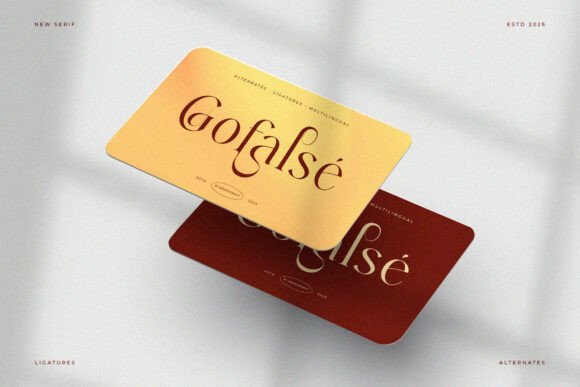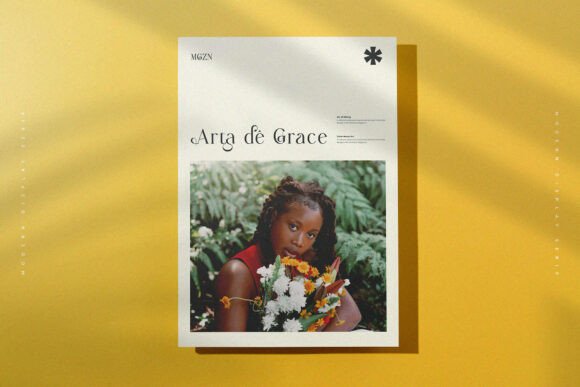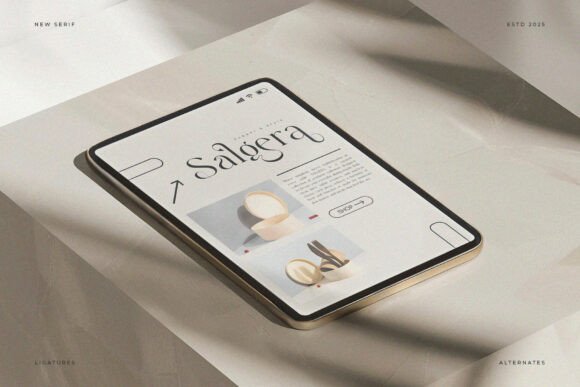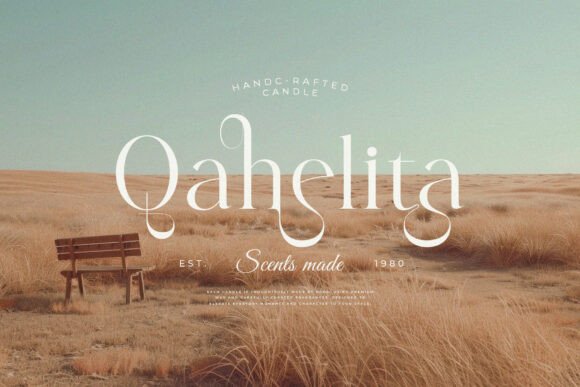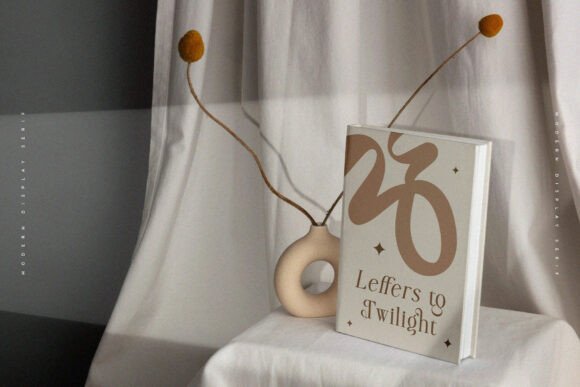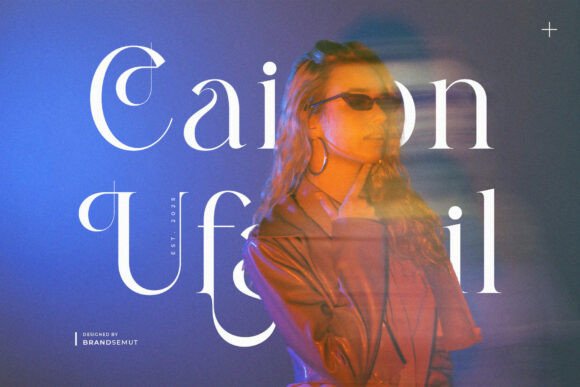
Introducing Gialita Font: Elevate Your Designs with Whimsical Elegance
In the world of typography, a font can make or break a design. For designers and crafters seeking to infuse their projects with a touch of sophistication and playfulness, Gialita Font is an exceptional choice. This stylish modern display serif font seamlessly blends whimsical elegance with contemporary sophistication, making it perfect for a wide range of applications.
What Makes Gialita Stand Out?
Gialita is characterized by its graceful curves, artistic stroke contrast, and thoughtfully crafted ligatures. Each letterform is infused with playful refinement, making it an ideal choice for projects that seek to balance creativity with polish. The font’s decorative serifs and fluid alternates create a dynamic visual rhythm that enhances logos, editorial layouts, fashion branding, and luxury packaging.
Key Features of Gialita Font
- Stylish Modern Display Serif: Gialita boasts a unique and sophisticated design that adds a touch of elegance to any project.
- Whimsical Elegance: The font’s playful curves and artistic stroke contrast bring a sense of whimsy and refinement to your designs.
- Contemporary Sophistication: Gialita’s modern aesthetic ensures that your designs look fresh and up-to-date.
- Ligatures and Stylistic Alternates: The font includes thoughtfully crafted ligatures and stylistic alternates to add variety and creativity to your designs.
- Multilingual Support: Gialita supports multiple languages, making it a versatile choice for designers working on international projects.
Gialita Font is perfectly suited for designers who value precision and aesthetic flair. Its versatility makes it an excellent choice for:
- Logos: Create a lasting impression with a unique and memorable logo that showcases your brand’s personality.
- Editorial Layouts: Add a touch of sophistication to your editorial designs, such as magazines, newspapers, and blogs.
- Fashion Branding: Elevate your fashion brand with a font that exudes style and elegance.
- Luxury Packaging: Create luxurious packaging that reflects your brand’s high-end aesthetic.
- Wedding Invitations: Make your wedding invitations truly special with a font that combines whimsy and sophistication.
Why Choose Gialita Font?
Gialita Font offers a unique combination of elegance, playfulness, and versatility. Here are just a few reasons why designers and crafters love this font:
- Elegance without Compromise: Gialita delivers elegance without compromising readability, making it perfect for headlines, titles, and body text.
- Precision and Aesthetic Flair: The font’s attention to detail and artistic flair make it an excellent choice for designers who value precision and creativity.
- Print and Digital Media: Gialita performs beautifully in both print and digital media, ensuring that your designs look stunning across different platforms.